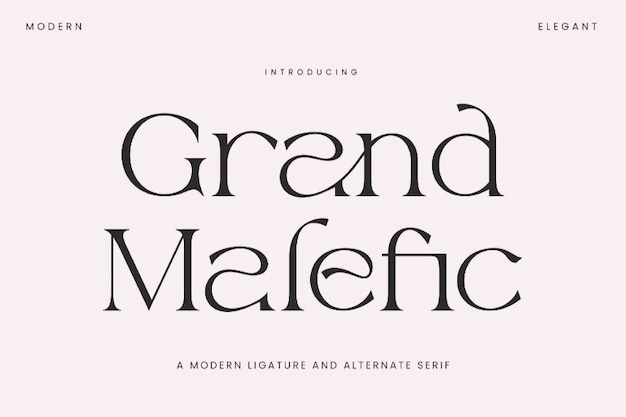
Grand Malefic Font
Flawless and Co
"Grand Malefic" font exudes modern elegance with its graceful, scripty design. Each letter flows seamlessly, evoking sophistication and charm. Perfect for upscale branding, invitations, or editorial projects, "Grand Malefic" adds a touch of refinement and style, elevating your text with its sleek and elegant appearance.